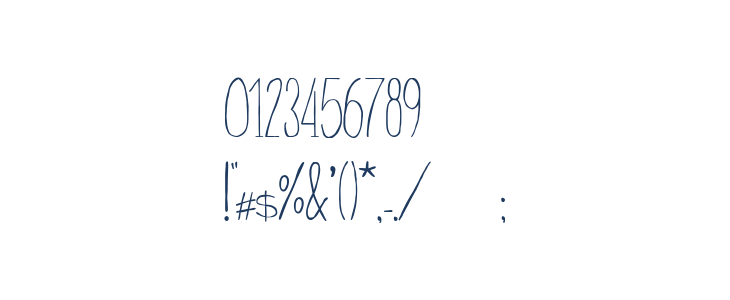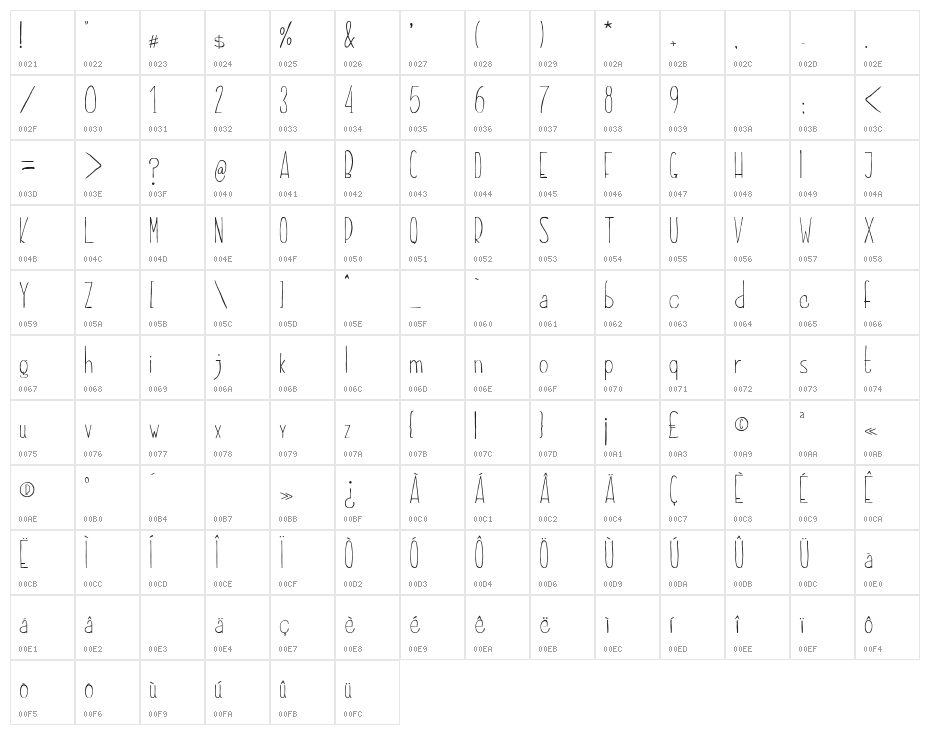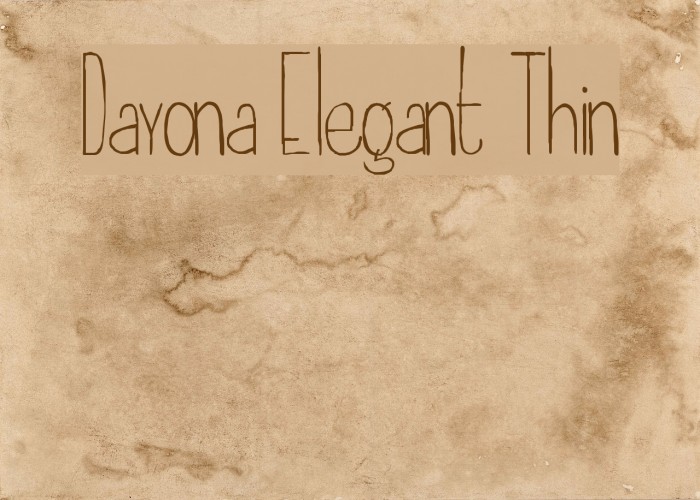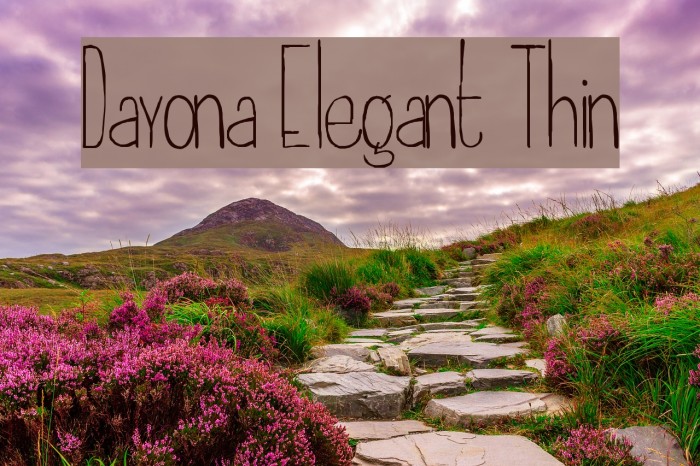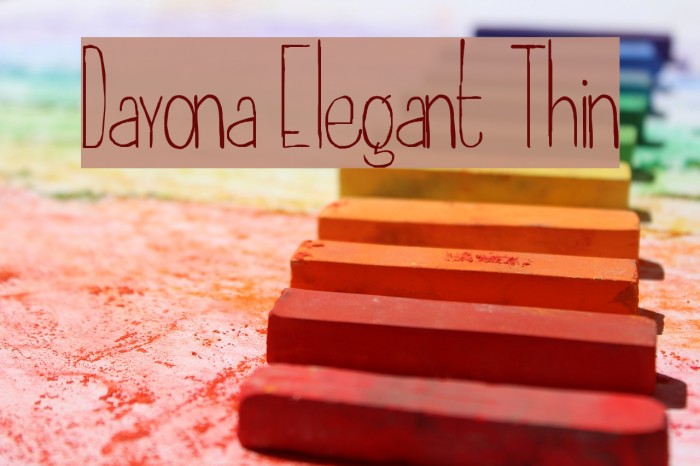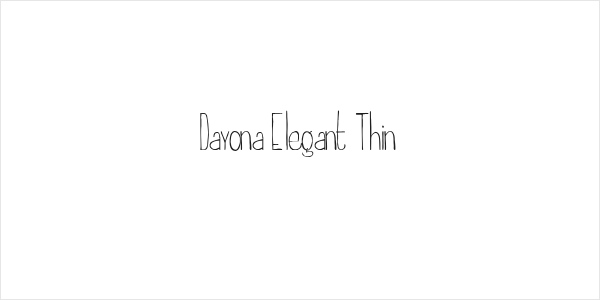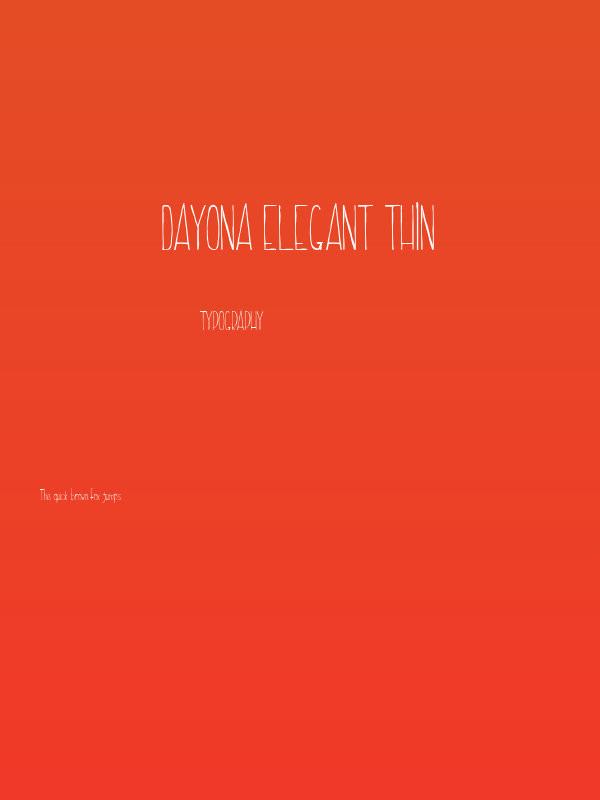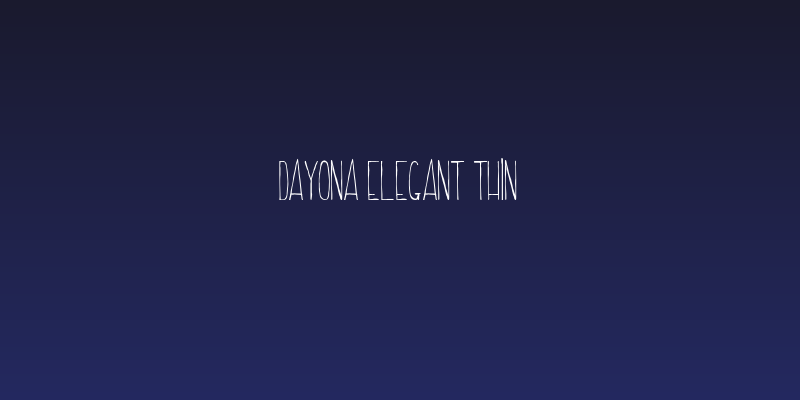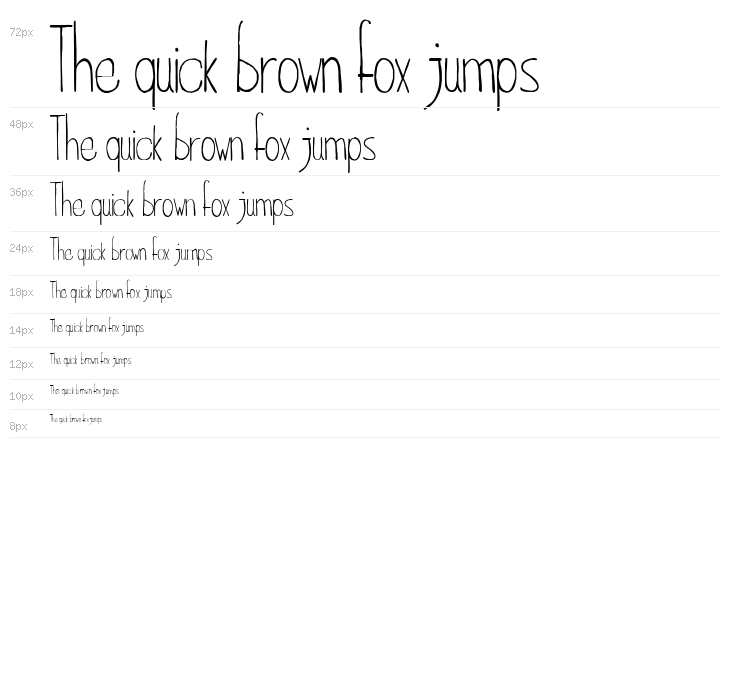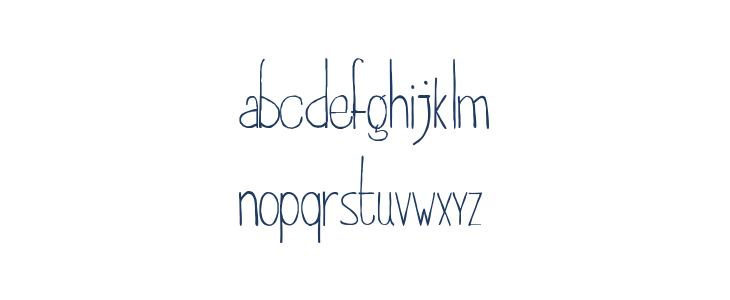
Dayona Elegant Thin Font
Dayona Elegant Thin Description
This font features an elegant and thin design, characterized by its tall, narrow letterforms and delicate strokes. The uppercase letters are slightly taller than the lowercase, maintaining a consistent thinness throughout. The font has a modern and sophisticated appearance, with a touch of minimalism. The numerals and special characters follow the same slender style, ensuring a cohesive look across all text. The overall design is clean and refined, making it suitable for projects that require a touch of elegance and simplicity.
| Overall Style | Elegant, Minimalistic |
| Proposed Projects | Ideal for wedding invitations, luxury branding, fashion magazines, and elegant product packaging. |